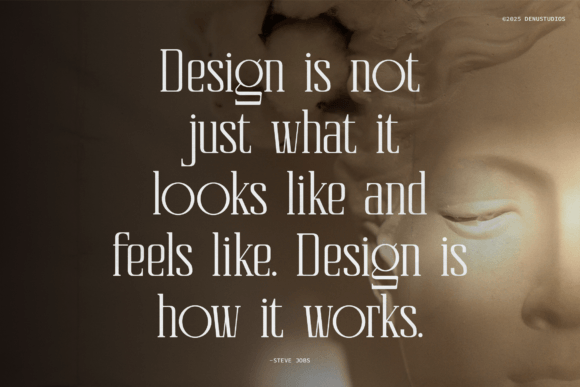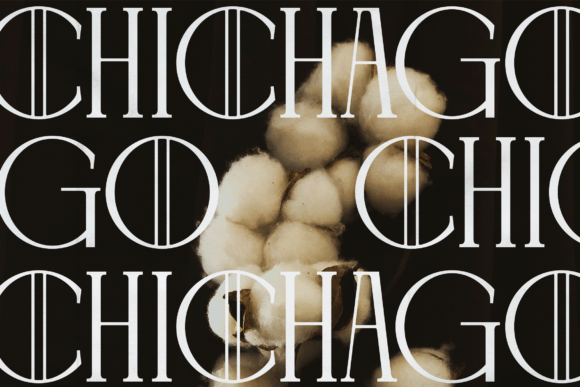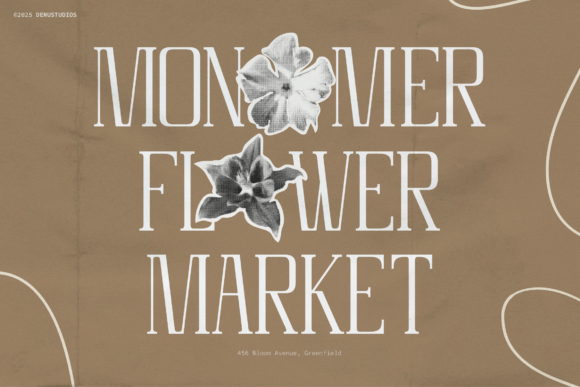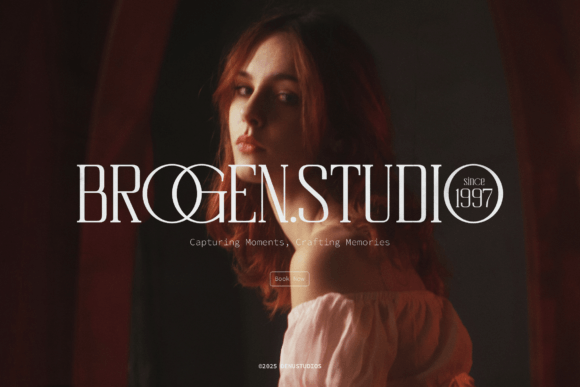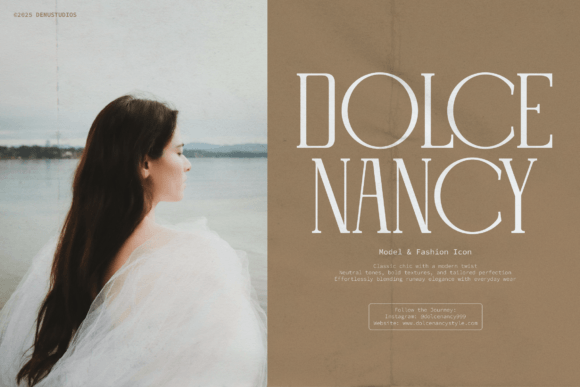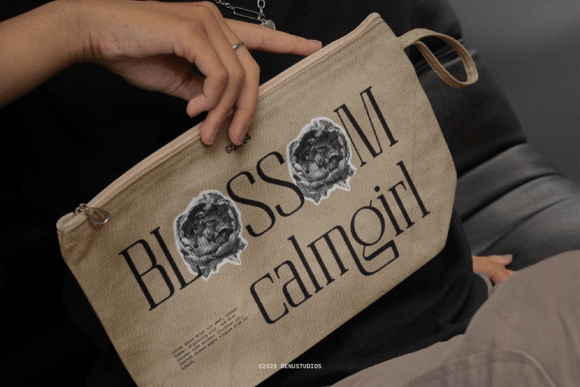
Introducing Celvio Monase: The Epitome of Modern Elegance in Typography
In the realm of typography, fonts play a pivotal role in conveying the tone and personality of a brand or design. Among the myriad of fonts available, Celvio Monase stands out as a striking display serif font that exudes sophistication and modern elegance. Its unique blend of tall, thin letterforms and geometric details not only captures attention but also brings a sense of refinement and style to any project.
Design Characteristics of Celvio Monase
One of the defining features of Celvio Monase is its tall, thin letterforms. These sleek designs are not just visually appealing but also convey a sense of luxury and high-end quality. The incorporation of unique geometric details further enhances the font’s distinctive appeal, making it perfect for projects that demand a touch of modern sophistication.
Another notable aspect of Celvio Monase is its inclusion of alternates and ligatures. With over 260 glyphs, designers have a wide array of options at their disposal, allowing for greater creativity and flexibility in their work. This extensive character set ensures that the font can be used in a variety of contexts, from high-end branding and editorial designs to luxurious packaging and logos.
Applications of Celvio Monase
The versatility of Celvio Monase makes it an excellent choice for numerous design applications. Here are some of the key areas where this font truly shines:
- High-End Branding: Create a lasting impression with a sophisticated brand identity that speaks of luxury and elegance.
- Editorial Designs: Elevate your publications with a refined and modern typographic style.
- Luxurious Packaging: Stand out in the market with packaging designs that exude premium quality.
- Logos: Craft memorable and impactful logos that embody the essence of your brand.
Why Choose Celvio Monase?
Choosing the right font for a project can be a daunting task, given the vast options available. However, Celvio Monase offers several compelling reasons to make it your go-to choice:
- Sophistication: Its modern design ensures that your project looks contemporary and sophisticated.
- Versatility: With its extensive glyphs and alternates, it can be adapted to various design needs.
- Elegance: The font’s inherent elegance makes it suitable for projects that require a touch of luxury.
Celvio Monase is more than just a font; it’s a design statement. Its striking display serif design, coupled with its modern elegance and versatility, makes it a valuable asset for designers and crafters. Whether you’re working on high-end branding, editorial designs, luxurious packaging, or logos, Celvio Monase is poised to bring a level of sophistication and style that’s hard to match.
Embrace the world of modern typography with Celvio Monase and elevate your designs to new heights of elegance and refinement.